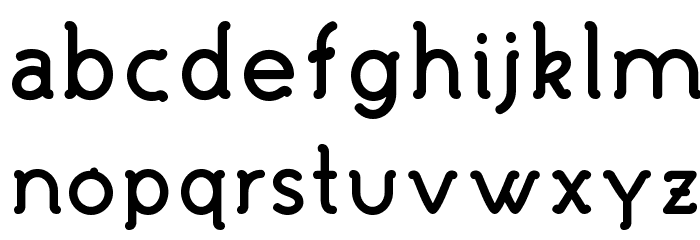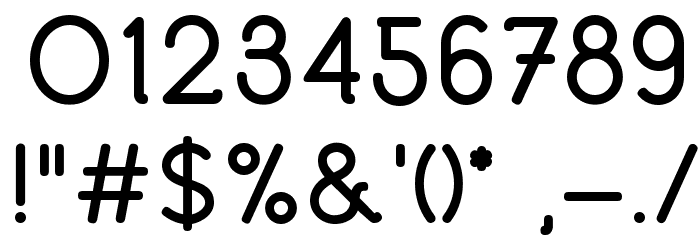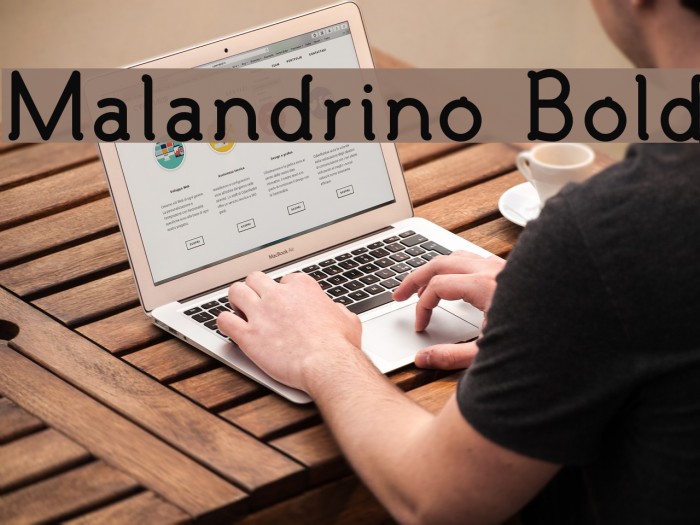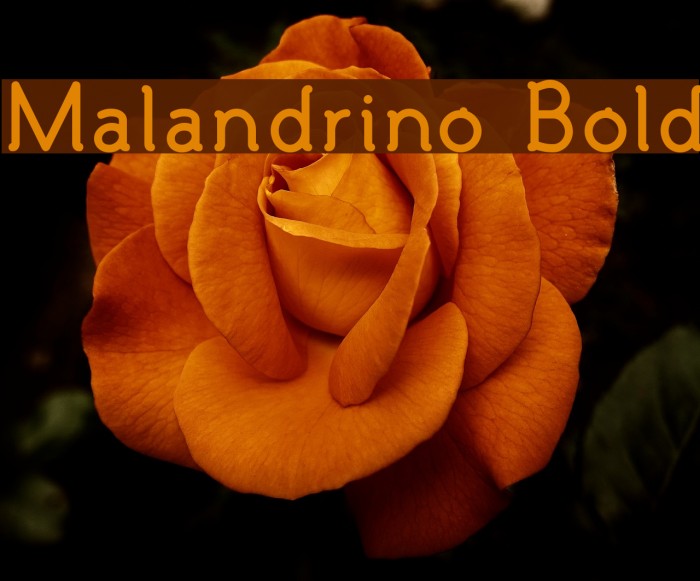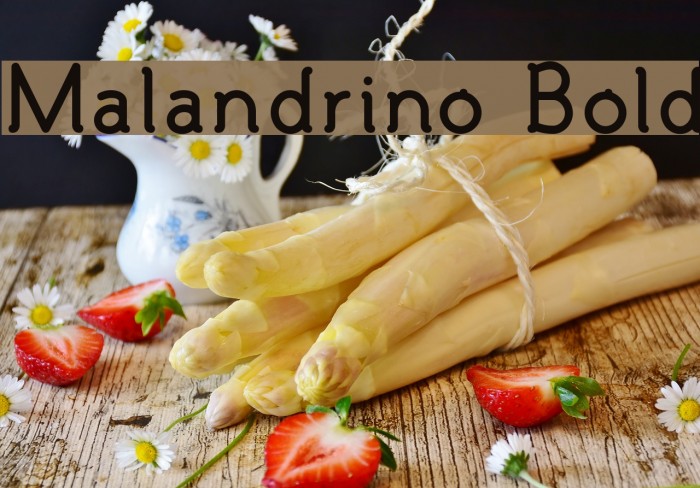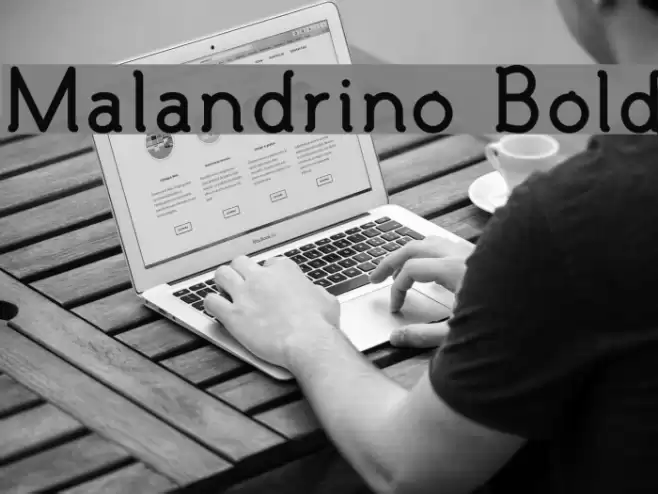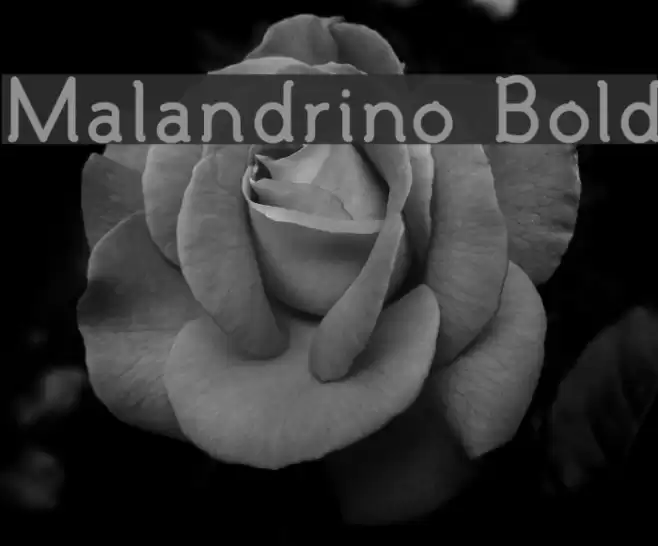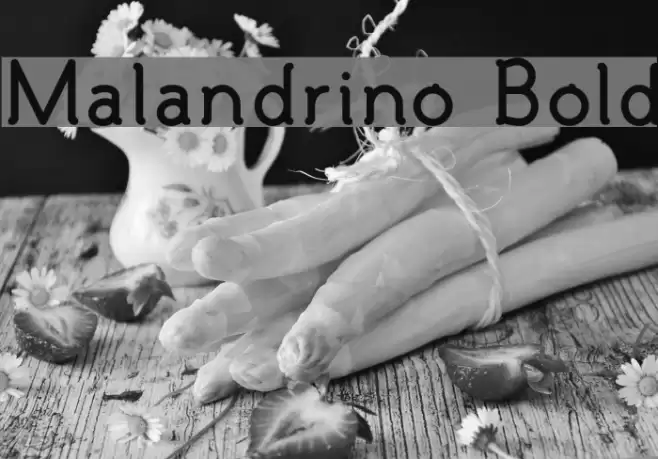
Malandrino Bold Font
This font features a playful and rounded design, characterized by its smooth curves and consistent stroke width. The letters are bold and have a friendly appearance, making them suitable for a variety of informal and creative applications. The uppercase and lowercase letters maintain a uniform style, with rounded edges that enhance readability. Numbers and special characters are designed to match the overall aesthetic, providing a cohesive look across all text elements. The font's simplicity and clarity make it versatile for both digital and print media.
A playful, rounded font with smooth curves and consistent stroke width.
- Proposed Projects: Ideal for children's books, playful branding, casual invitations, and creative posters.